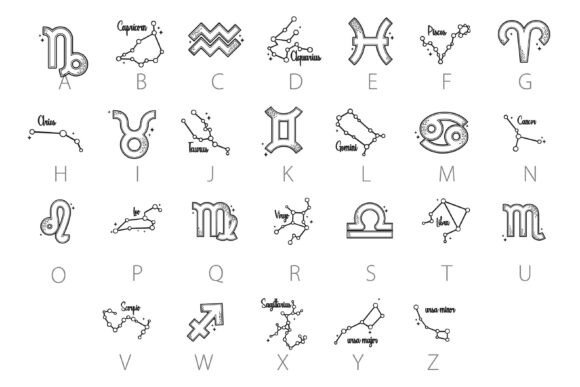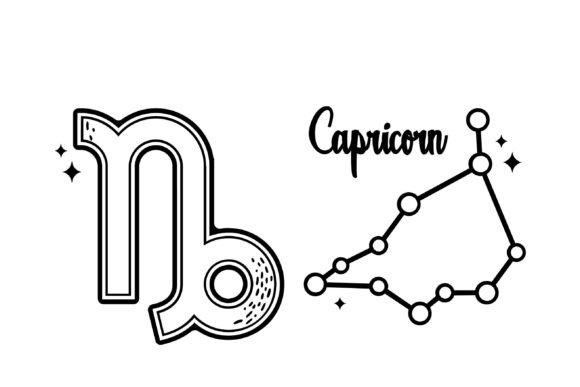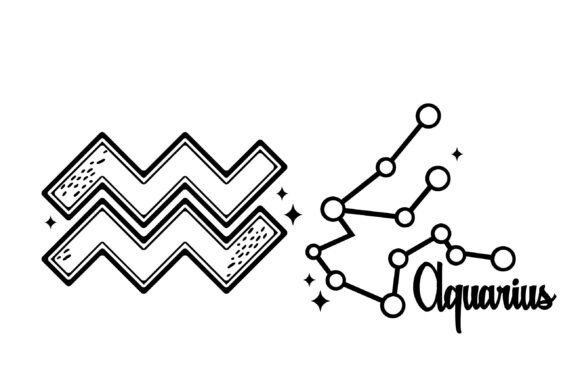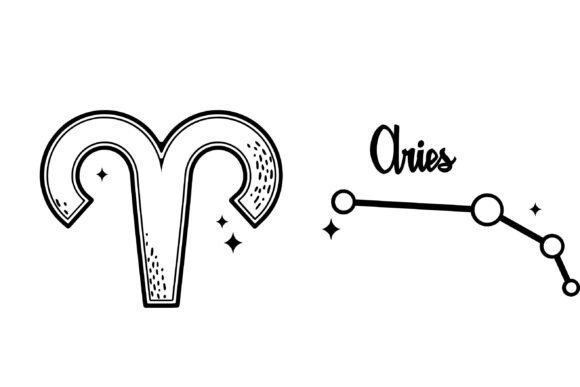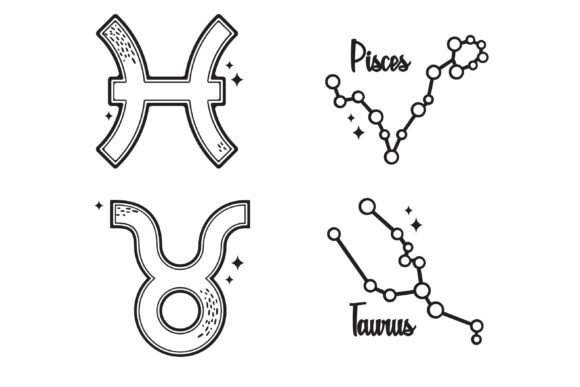
Introduction to In the Stars Constellations Dingbats Font
In The Stars: Constellations & Signs Dingbat Font Explore the technical beauty of the night sky with In The Stars – Constellations and Signs, a professional dingbat font that blends astronomical accuracy with decorative flair.
This font features a dual set of assets: intricate, clean-lined star maps for every constellation and bold, stylized symbols for each zodiac sign Each icon is enhanced with subtle stippled shading and twinkling star accents, making it an exceptional choice for minimalist jewelry branding, astronomical charts, sophisticated stationery, and mystery-themed editorial headers.